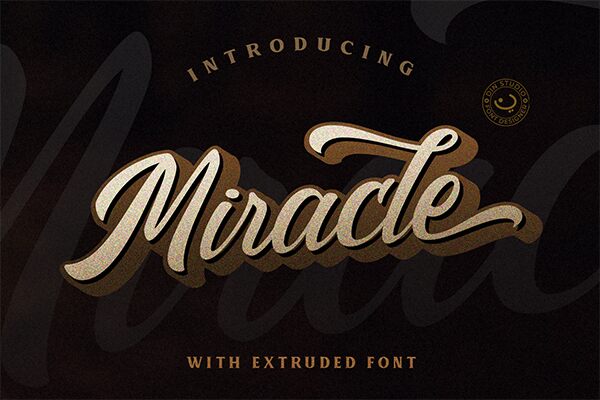
Let this Miracle Script helps your design turn into a true Miracle!
Miracle Script is a modern logotype. It's suitable for T-Shirt printing, name card design, branding projects,
product packaging, quotes, logos, book covers, and many other lovely projects of yours. Miracle Script is
featured with extruded font so it will make your design look powerful.